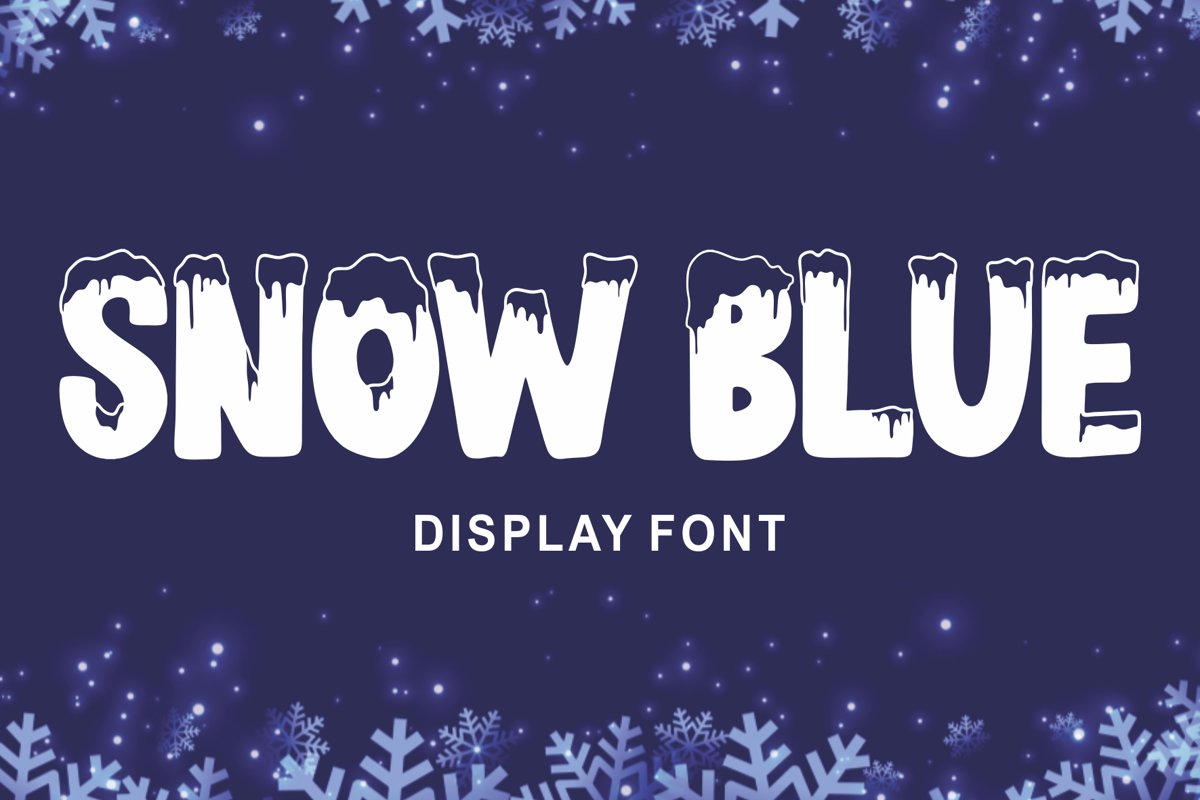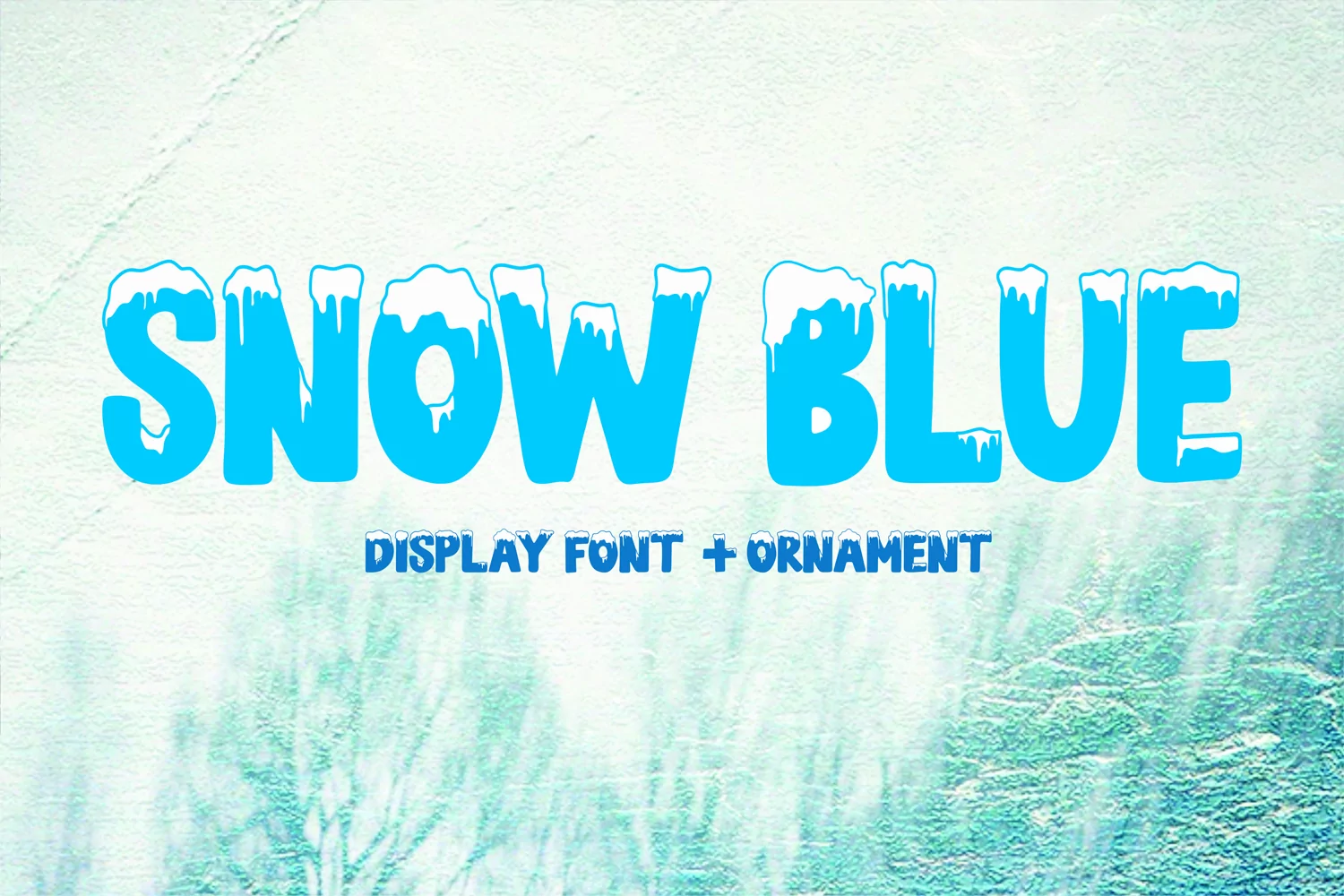
SNOW BLUE
It's name SNOW BLUE.
SNOW BLUE is modern display font. SNOW BLUE is a bold decorative font perfect for your celebration party like Halloween, Chrismast or New Year.
SNOW BLUE would perfect for Titles for kid`s book, scrapbook, logo, icon, phrases or quotes for winter greeting cards ( Halloween, Christmas or New Year holidays), photo overlay, short phrases, children’s book, gift shops tag, presentation in social media Pinterest, Instagram, Facebook or others.
SNOW BLUE FEATURES
SNOW BLUE Ornaments Bonus and Decorations